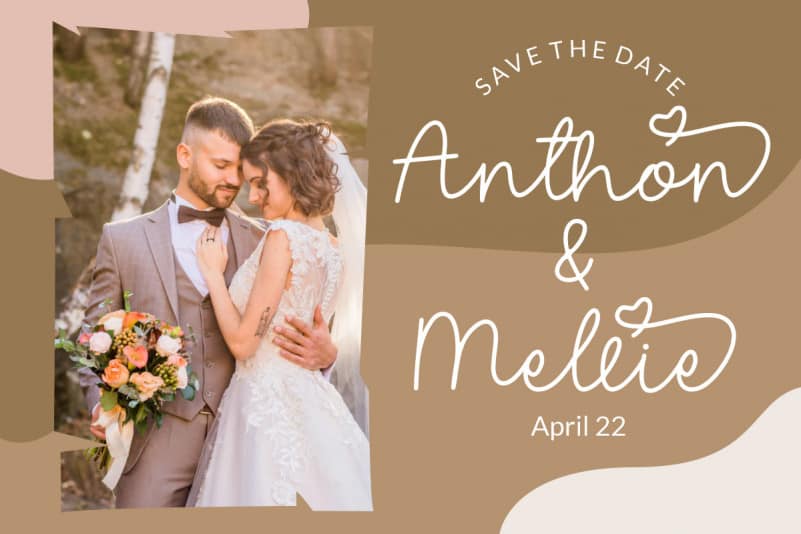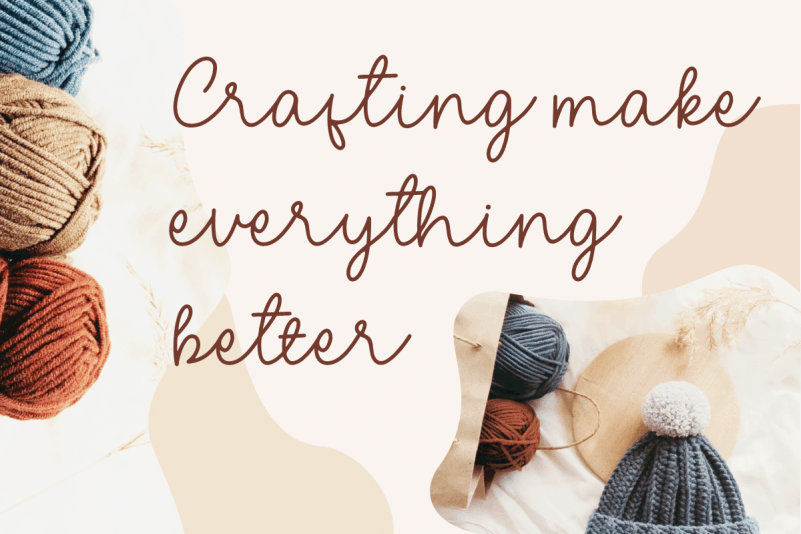
Eigha Script Font
Eigha Script Font is a monoline script font, a lovely writing font on a pretty love theme. This script font is perfect for covers, watermarks, branding, names, business cards, products, logos, etc.